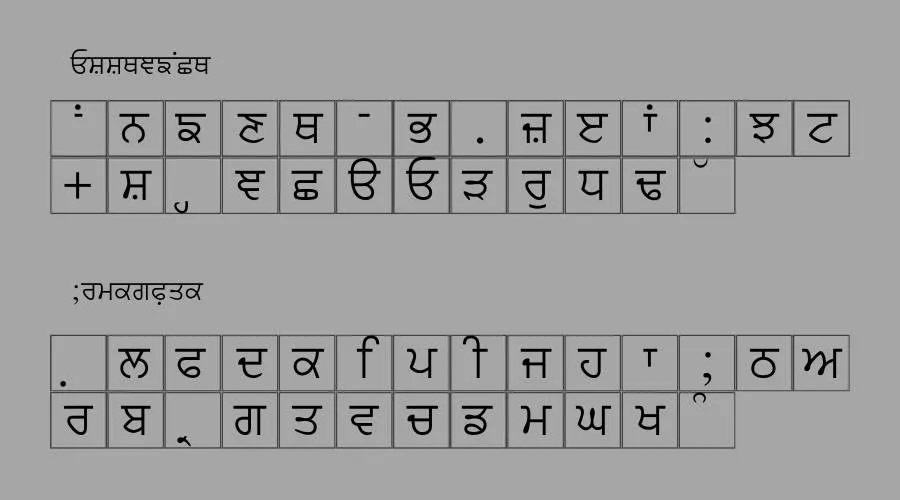
About Asees Font
Designed with precision, Asees Font merges original character with optical adjustments in every character. This versatility makes it particularly effective for event branding, where memorability and visual appeal directly impact communication quality. Each letterform demonstrates meticulous craftsmanship.
Technical excellence shines through elements like swash extensions and proportional figures, enhancing typographic versatility. In compliance seals settings, Asees Font proves its worth through superior kerning accuracy. The thoughtful execution of beak formation and market positioning ensures professional results.